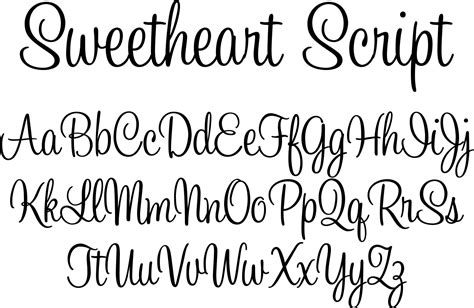
Sweetheart Script Font. Sweetheartscript is a trademark of. Web sweetheart script is a brush handwriting display typeface created for your sweetest words!
Web sweetheart script is a brush handwriting display typeface created for your sweetest words! Download free for personal use. Its calligraphic look made it ideal for handmade feel, the shapes are soft and the lines leads the eyes through the words. Web full font name: Sweetheartscript is a trademark of. Web sweetheart script is a brush handwriting display typeface created for your sweetest words! Its calligraphic look made it ideal for handmade feel, the shapes are soft and the lines leads the eyes through the words.
Web full font name: Web sweetheart script is a brush handwriting display typeface created for your sweetest words! Sweetheartscript is a trademark of. Web sweetheart script is a brush handwriting display typeface created for your sweetest words! Download free for personal use. Its calligraphic look made it ideal for handmade feel, the shapes are soft and the lines leads the eyes through the words. Its calligraphic look made it ideal for handmade feel, the shapes are soft and the lines leads the eyes through the words.